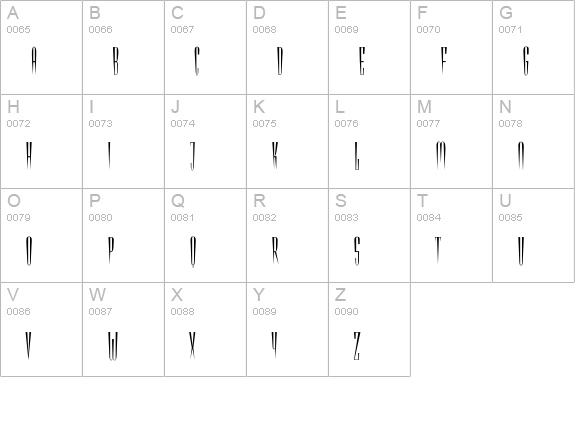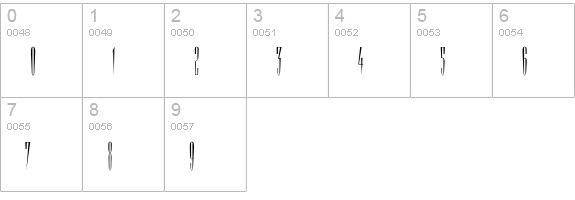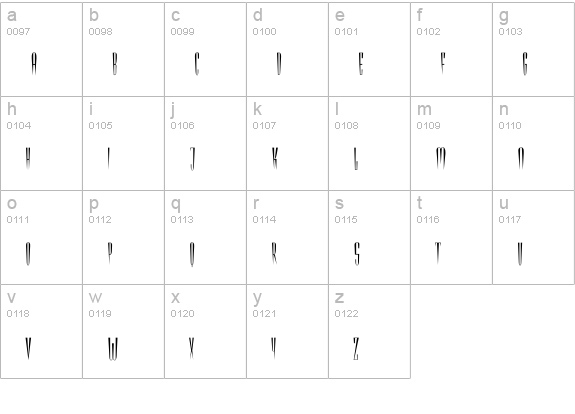
Girlfriend Font Details
Girlfriend font is a charming and elegant typeface that exudes a sense of femininity and sophistication. With its delicate curves and graceful lines, this font is perfect for adding a touch of romance to any project. Whether you're designing wedding invitations, love letters, or romantic quotes, Girlfriend font will surely captivate your audience with its timeless beauty. Best of all, Girlfriend font is available for free download at FontsMarket.com. You can easily access this stunning font and start using it in your designs without any cost. Embrace the elegance and charm of Girlfriend font today and let your creativity shine with this exquisite typeface.